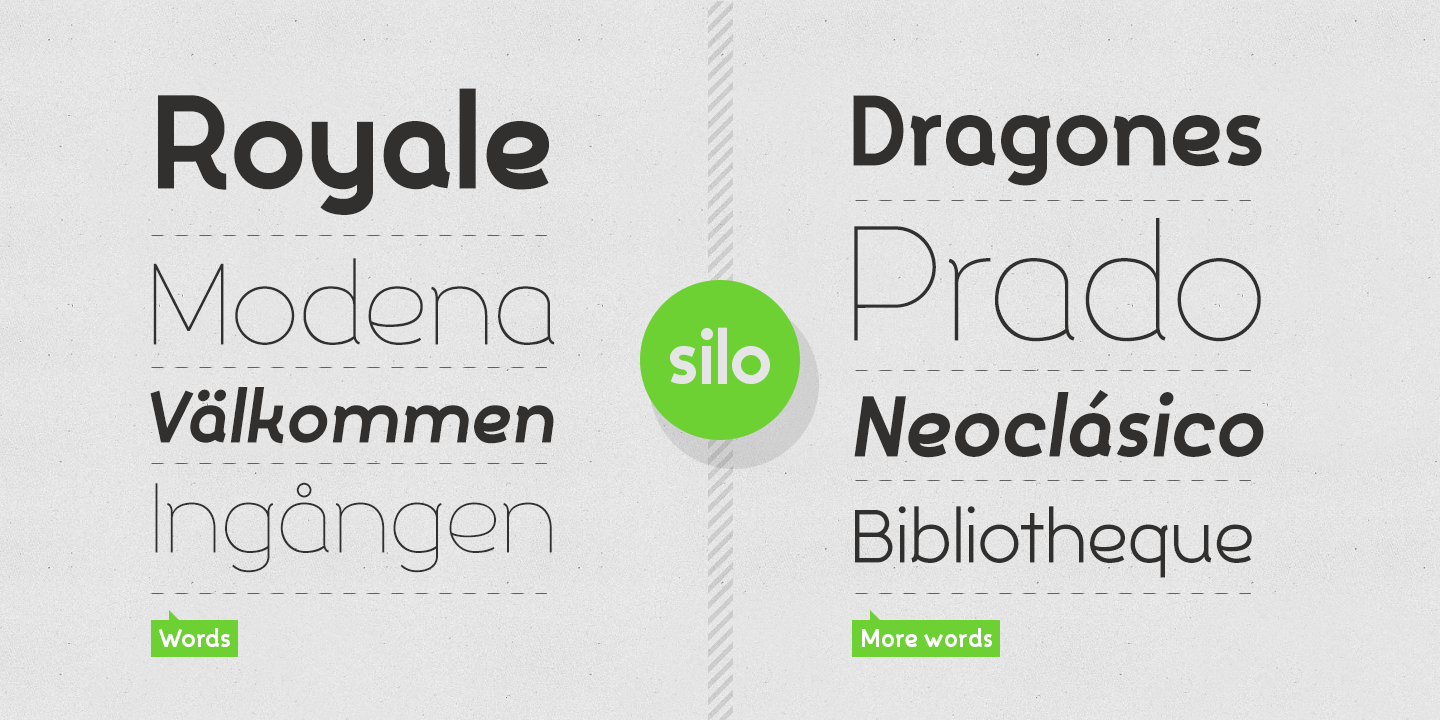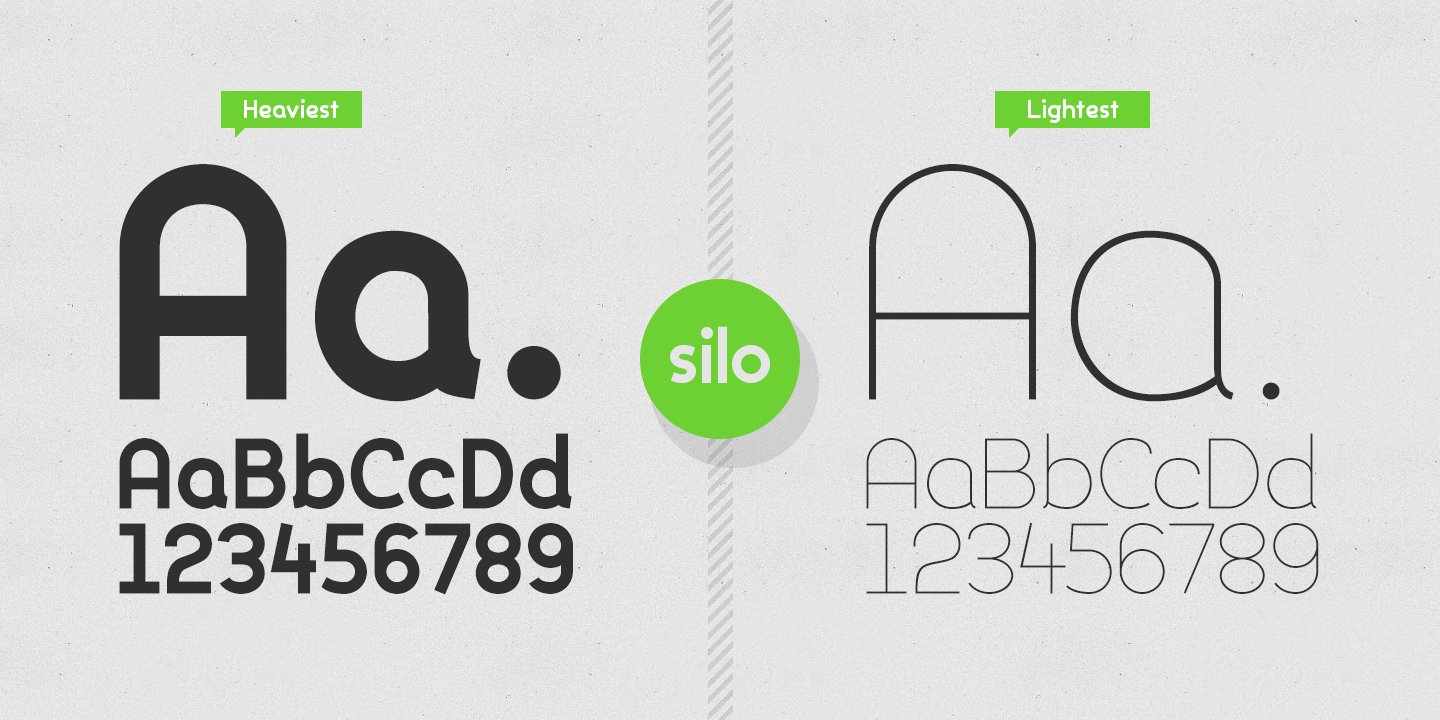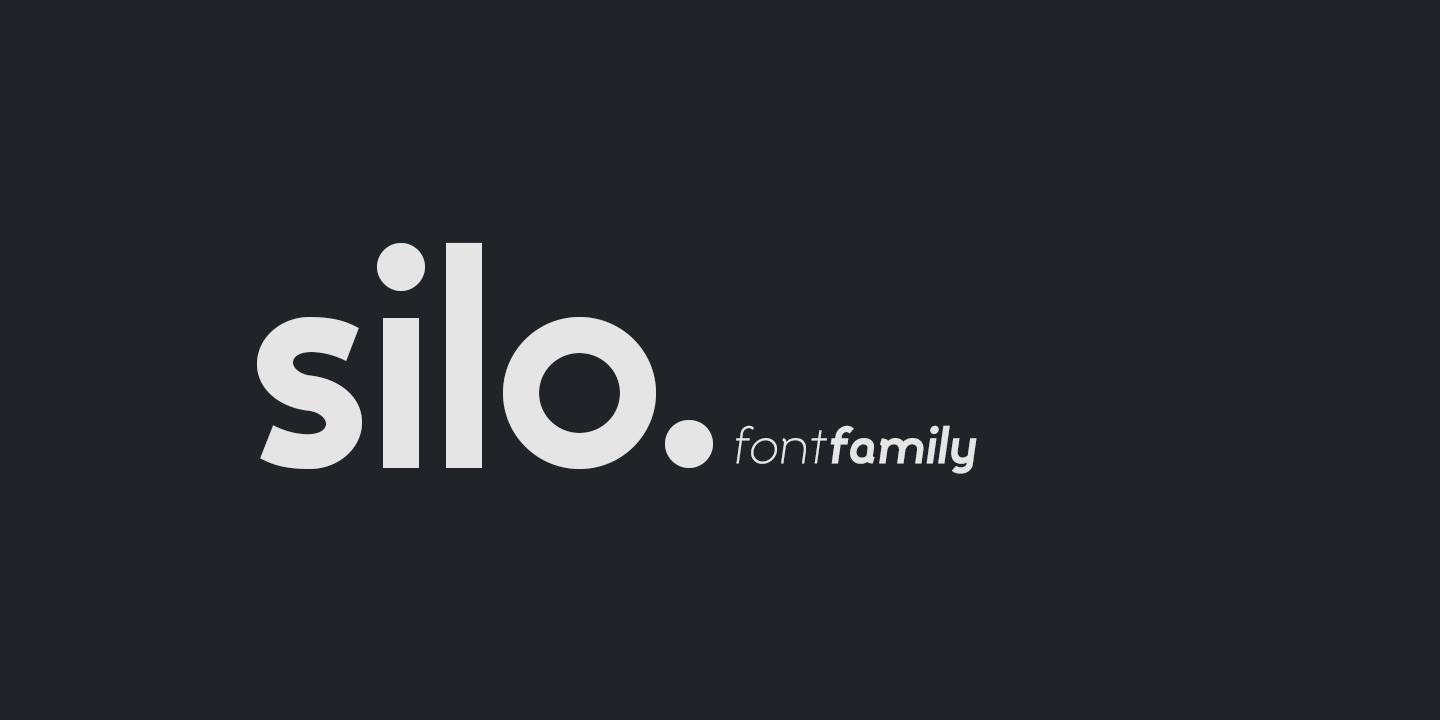
Silo
Silo Font Family
Designed and built in London by TypeUnion, Silo is a fluid sans serif typeface embodying energetic curves and a clean, functional structure.
The Silo Family is made up of 6 weights, which range from a delicate Extra-Light, all the way through to a punchy, loud Extra-bold and each carry a versatility for multiple applications and uses.
Silo features open type alternate characters, and extensive language support to provide a flexible, substantial user experience.